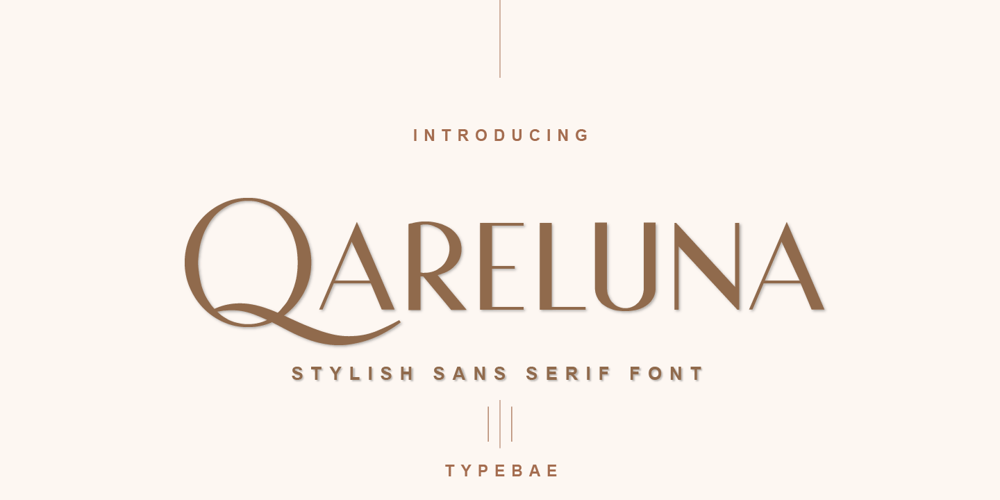
Qareluna Font Family was designed by Iqbal Pauji and published by Typebae. Qareluna contains 2 styles and family package options. Qareluna is a beautiful and elegant sans serif font. Suitable to a wide variety of designs due to its neat and simple style, this font has the potential to become your favorite go-to font, no matter the occasion!